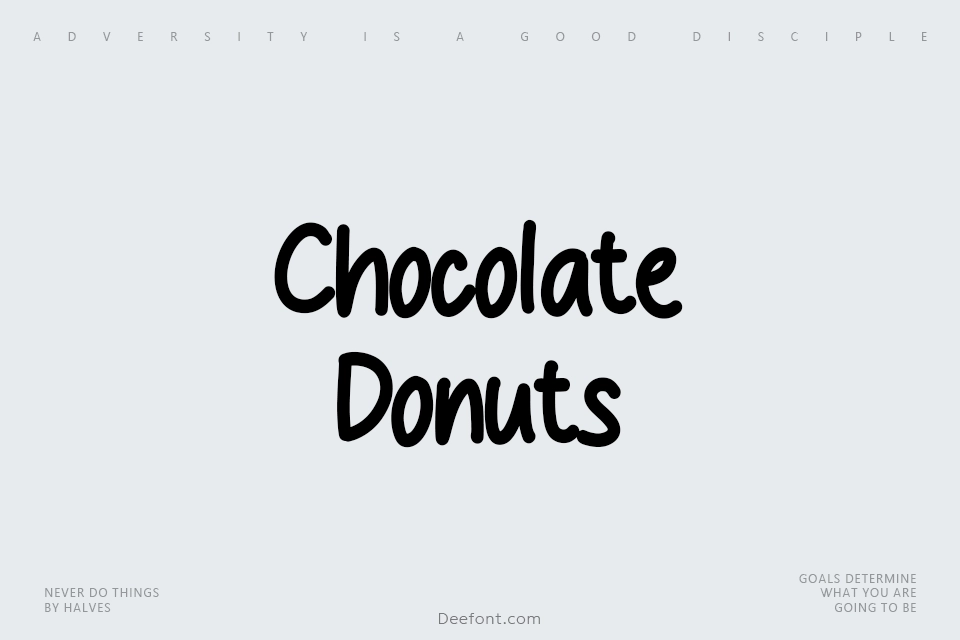
Chocolate Donuts Font
Chocolate Donuts is a delightful handwritten script font by MJType, featuring a playful and charming aesthetic that brings warmth and personality to any project. Perfect for children’s books, party invitations, branding, and creative endeavors, this font combines cute and approachable vibes with steady, inky strokes and rounded ends. With its gentle bounce and friendly feel, Chocolate Donuts transforms text into joyful designs ideal for snack packaging, classroom posters, wellness brands, and social media content, delivering consistent readability while maintaining whimsical appeal.